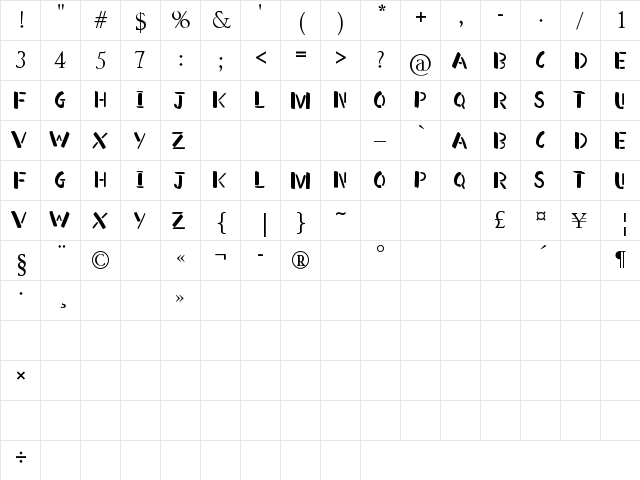
Free Stencil Regular
Design Context for Free Stencil Typeface
Free Stencil borrows the utilitarian aesthetic of stencil lettering, with its characteristic cutaways and no-frills construction lending an industrial edge.
A strong choice for packaging that needs edge, warehouse aesthetics, and rough-and-ready visual identities.
Pro Tip: Use Free Stencil at large sizes on packaging, posters, or apparel where the stencil cutaways read clearly. Avoid small sizes where those gaps become visual noise.